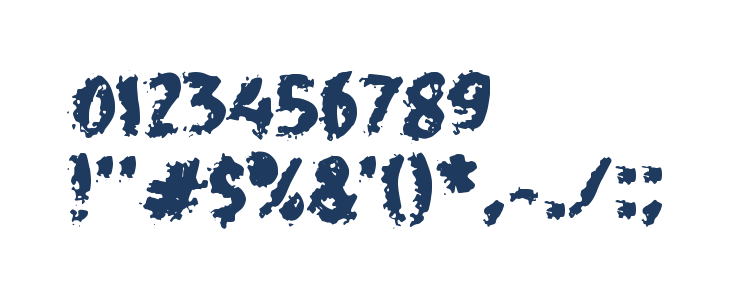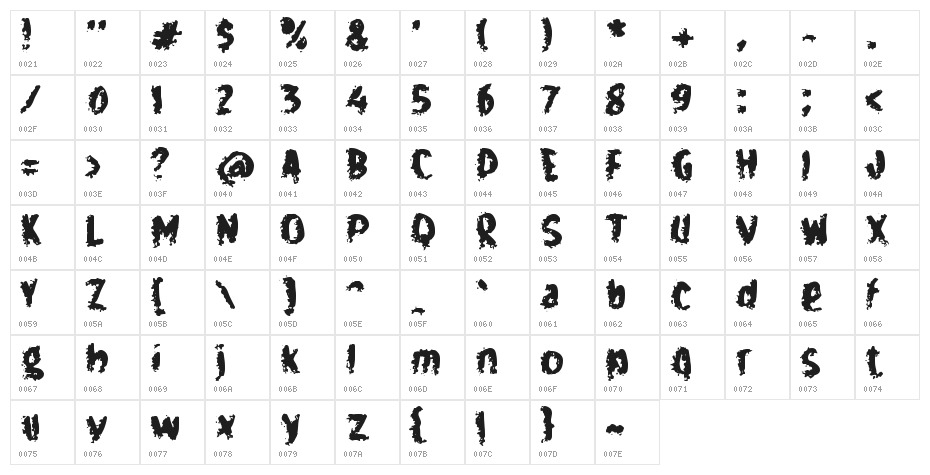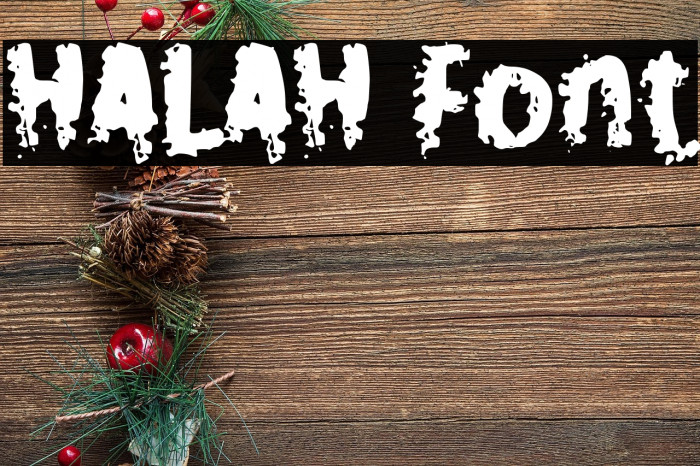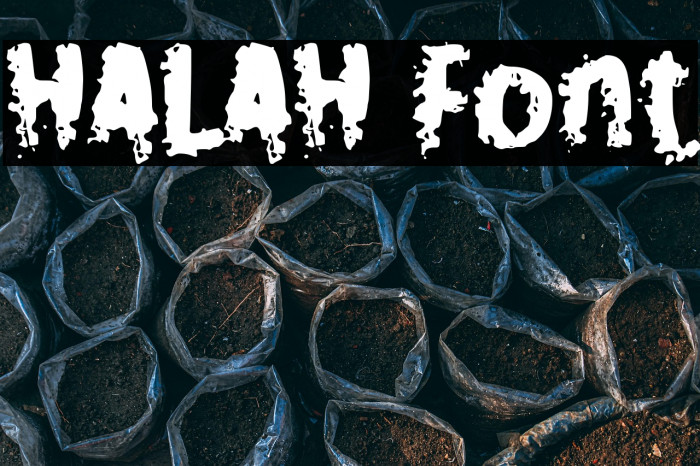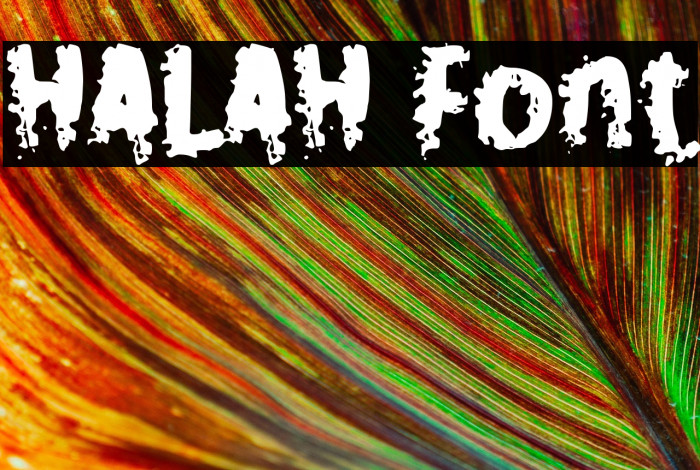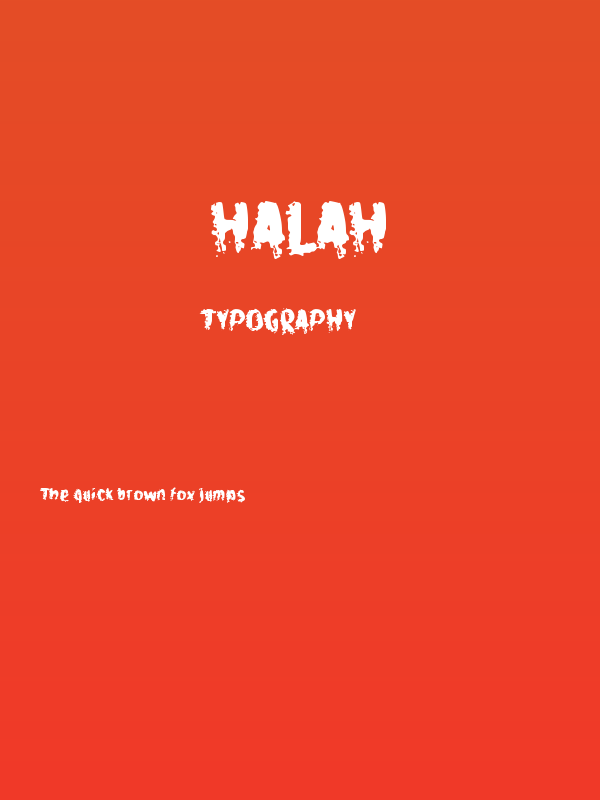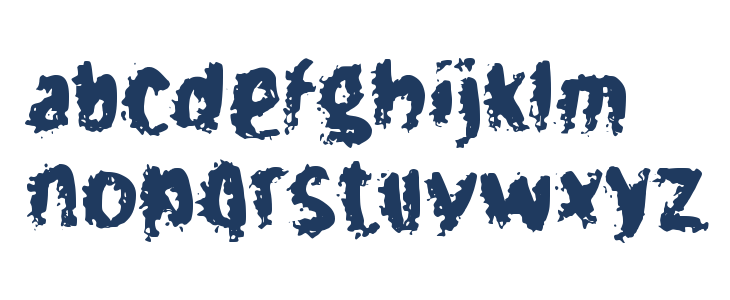
HALAH Font
HALAH Description
This font features a highly decorative and distressed style, with each character appearing as if it is dripping or melting. The bold, irregular strokes give it a chaotic and edgy appearance, making it stand out dramatically. The uppercase and lowercase letters maintain a consistent theme, with jagged edges and uneven forms that add to the overall grunge aesthetic. Numbers and special characters follow the same design principles, ensuring a cohesive look across all elements. This font is ideal for projects that require a bold, eye-catching statement with a touch of rebellious flair.